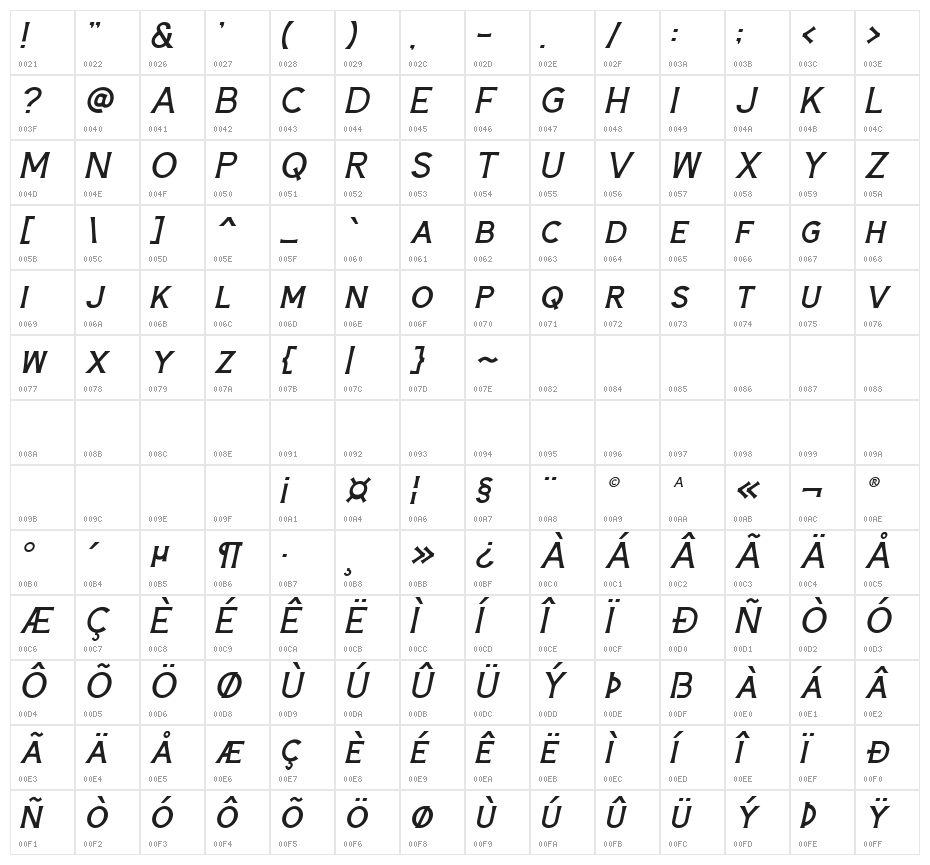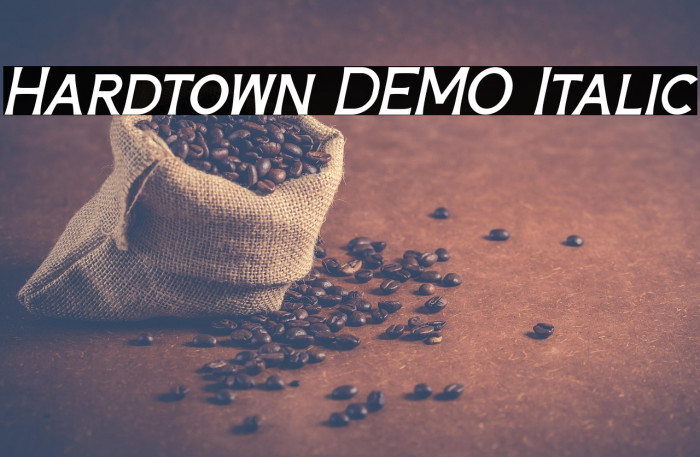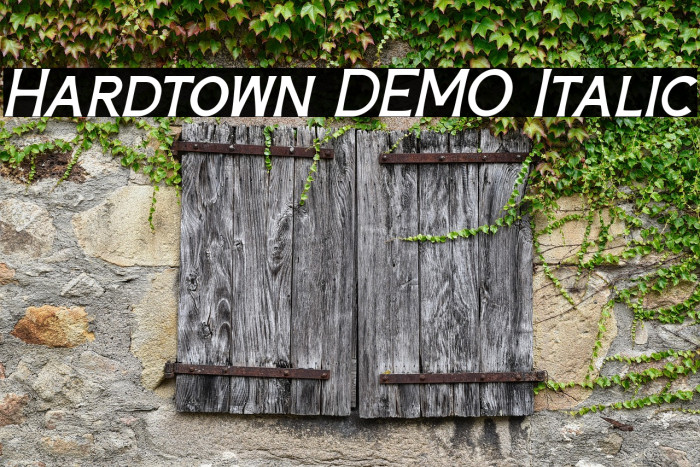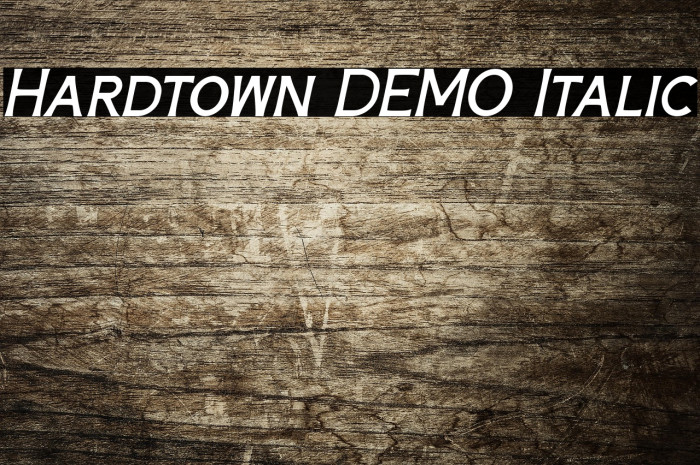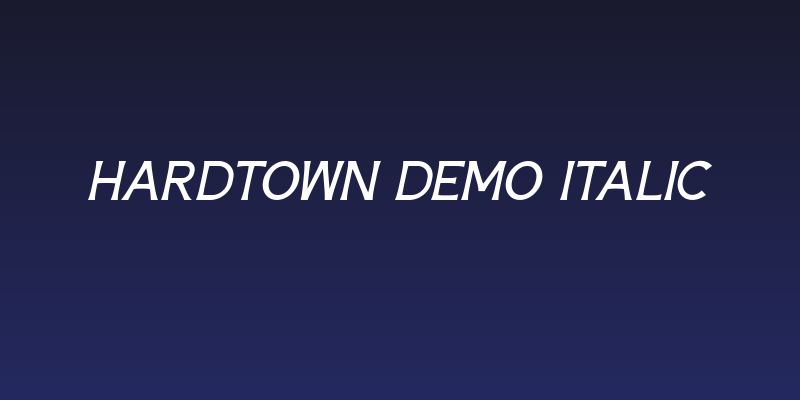
Hardtown DEMO Italic Font
Hardtown DEMO Italic Description
This font features a sleek, italicized style with a modern and dynamic appearance. The characters are slightly slanted, giving a sense of motion and fluidity. The strokes are consistent in thickness, providing a uniform look across all characters. The uppercase and lowercase letters maintain a harmonious balance, while the numerals and special characters are designed to complement the overall aesthetic. The font's clean lines and contemporary feel make it suitable for a variety of design applications.
| Proposed Projects | Ideal for branding, advertising, and editorial design projects that require a modern and stylish touch. |